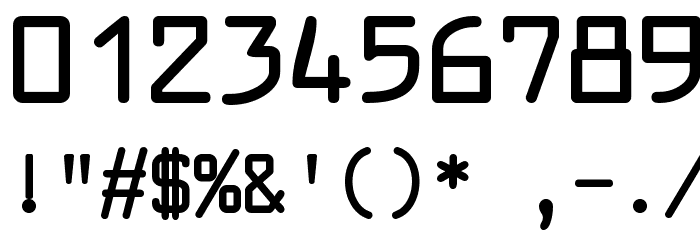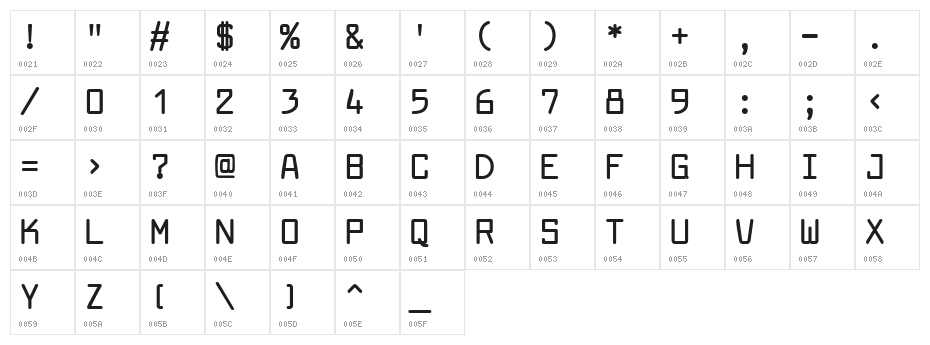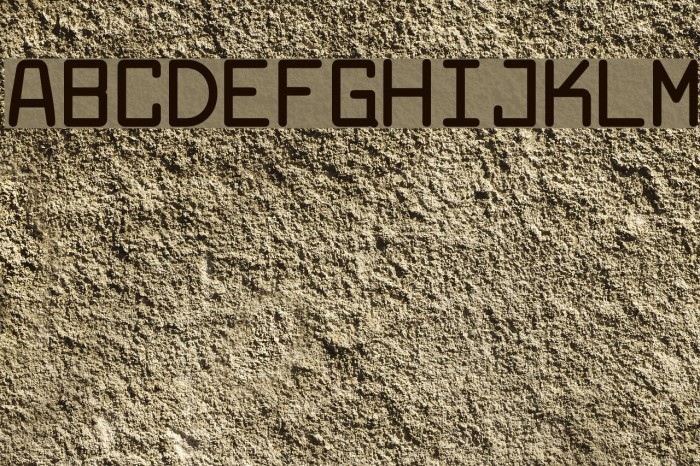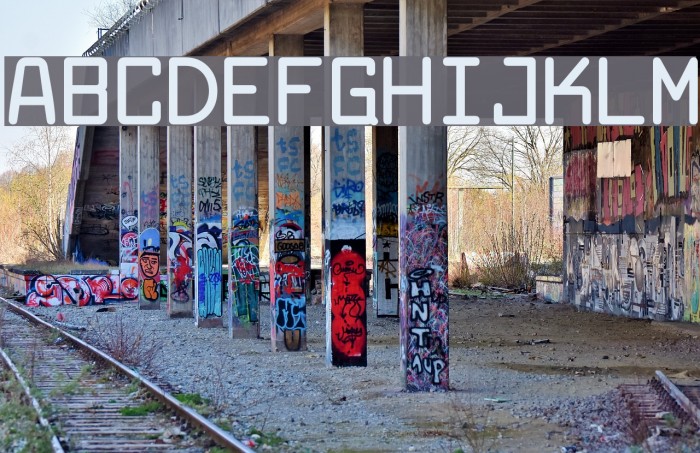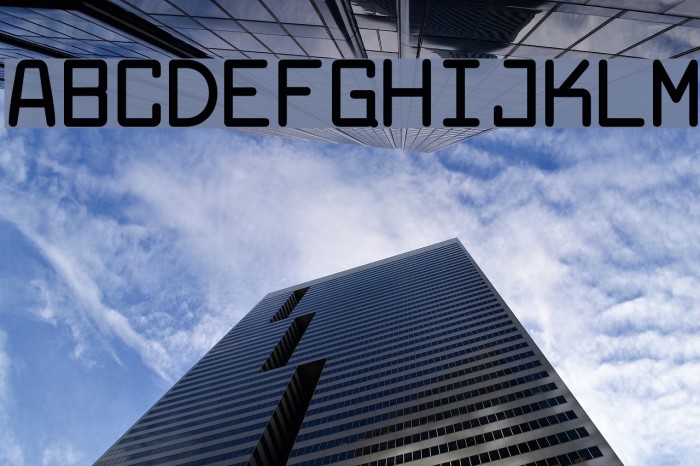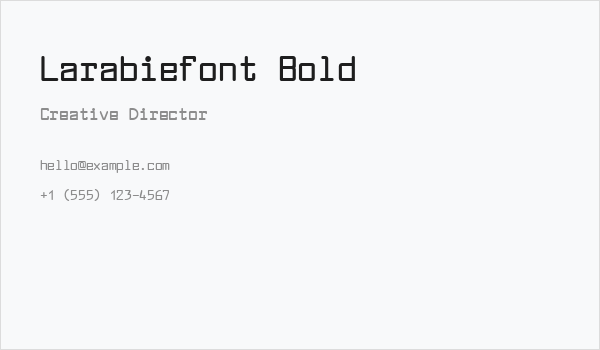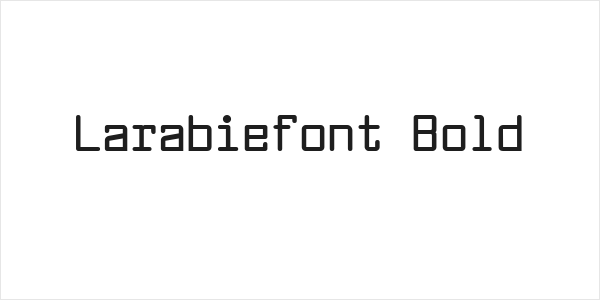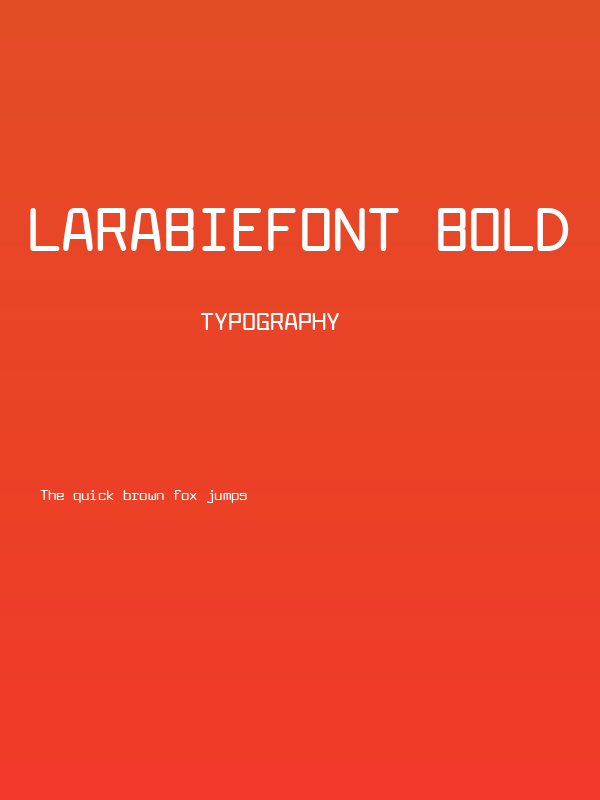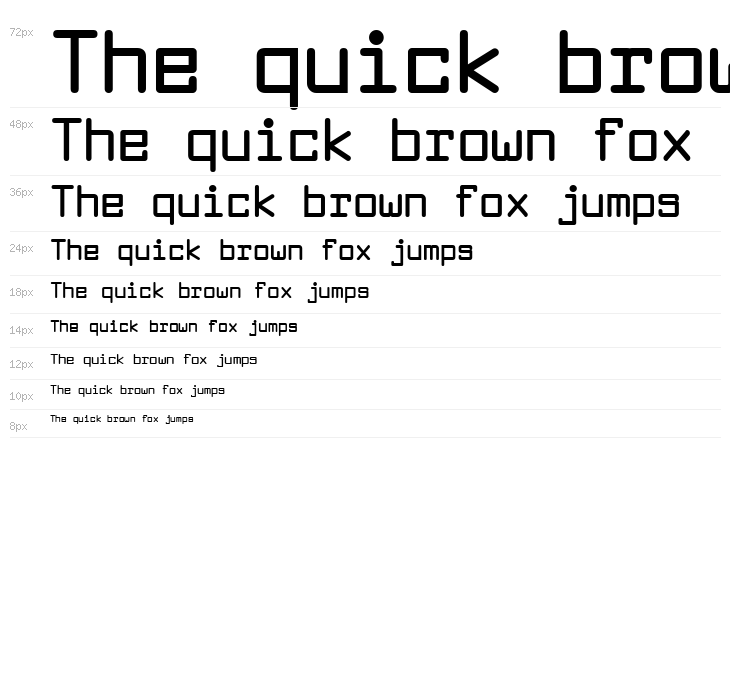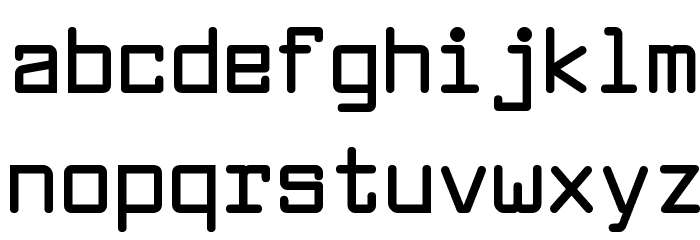
Larabiefont Bold Font
Larabiefont Bold Description
This font features a bold, geometric design with rounded edges, giving it a modern and approachable feel. The characters are evenly spaced and maintain a consistent weight throughout, contributing to its clean and structured appearance. The uppercase and lowercase letters share a similar width, creating a harmonious look. The numerals and special characters are designed to match the overall style, ensuring uniformity across all elements. This font's simplicity and clarity make it versatile for various applications.